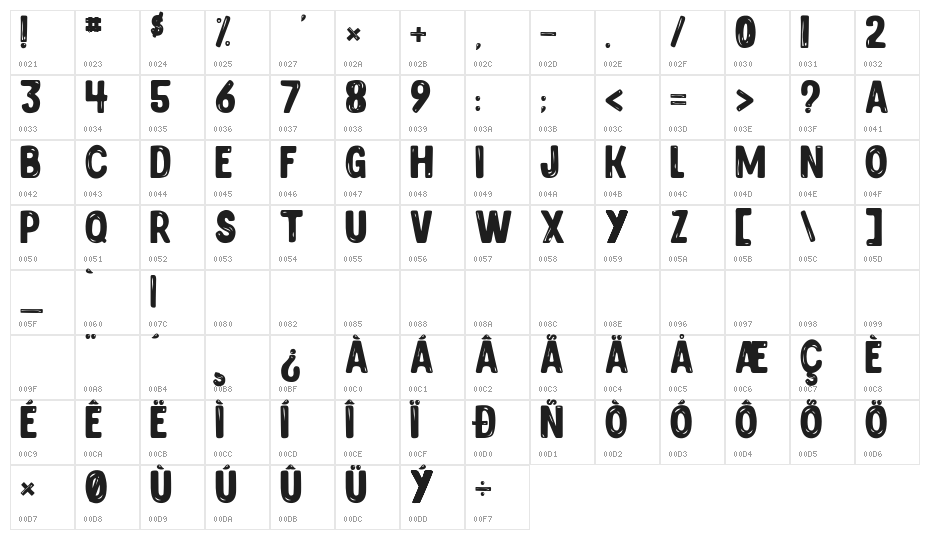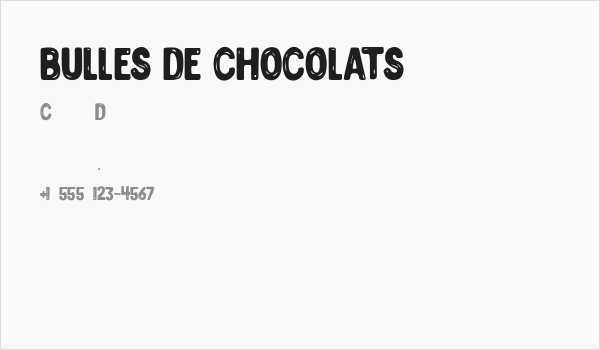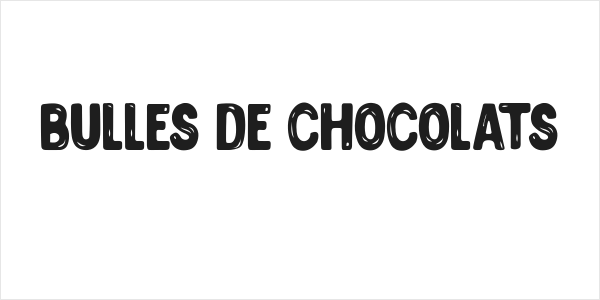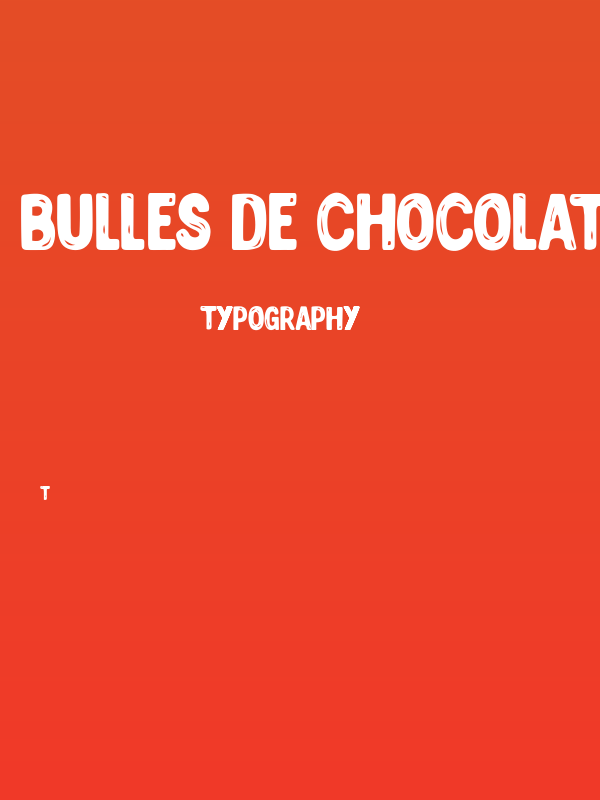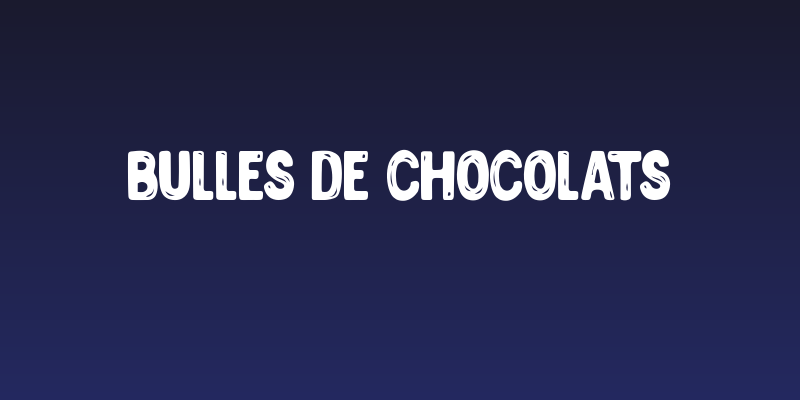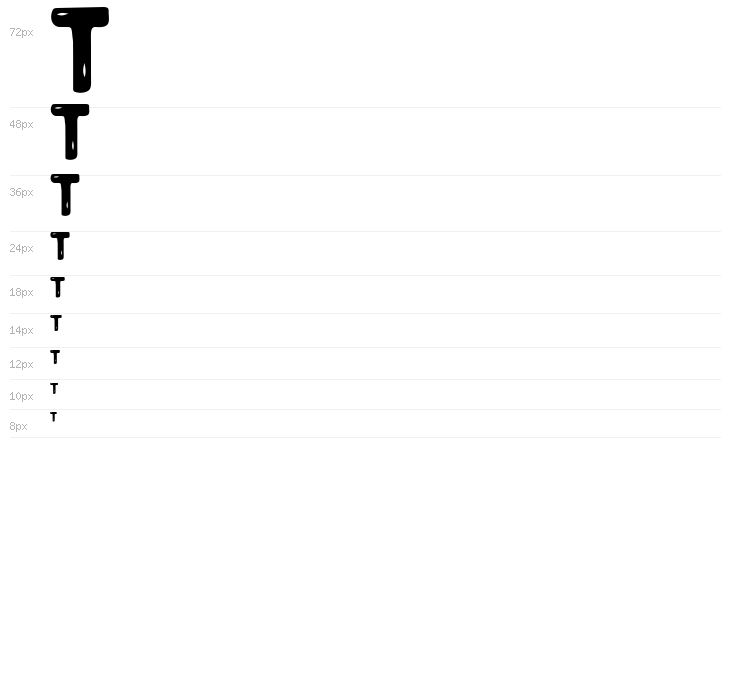
BULLES DE CHOCOLATS Font
BULLES DE CHOCOLATS Description
This playful and bold font features a bubbly, chocolate-inspired design that exudes a sense of fun and creativity. The characters are rounded and filled with irregular, playful shapes that mimic the appearance of melting chocolate or bubbles. The uppercase letters are prominent and eye-catching, making them ideal for attention-grabbing headlines. The numbers and special characters maintain the same whimsical style, ensuring consistency across all text elements. This font's unique design makes it perfect for projects that require a touch of humor and lightheartedness.
| Use Case | Headlines, Logos, Packaging |
| Proposed Projects | Ideal for children's books, candy packaging, playful branding, and party invitations. |